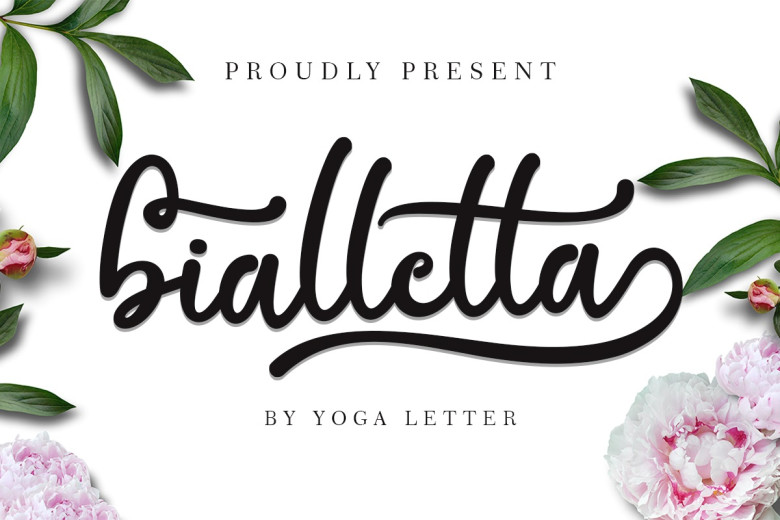
Bold Script Font Dafont. Vrindals script dafont font download free for desktop webfont 30 food fonts that are good enough to eat creative market blog. Guthenberg bold script is a bold calligraphy script with dramatic movement and strong style for your latest project that needs handlettering taste.
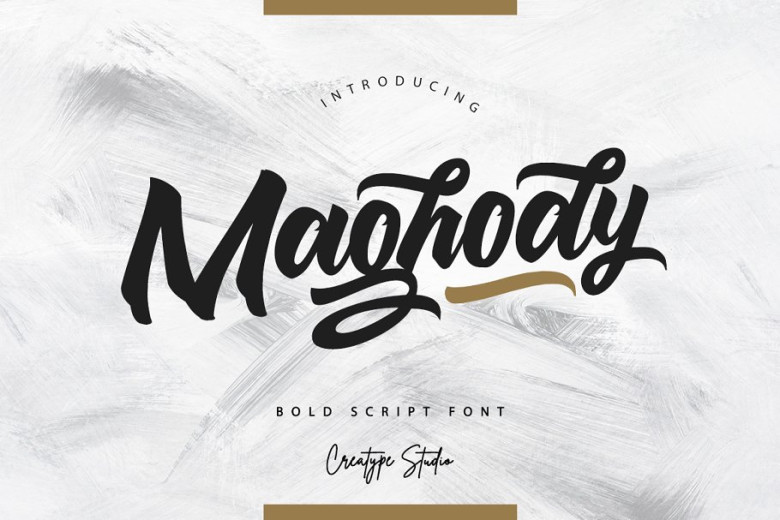
It includes all the upper and lowercase characters, alternates and ligatures, but doesn't include punctuation and other characters. It contains a full arrangement of lower and capitalized letters, enormous scope of accentuation, numerals, and multilingual help. Introducing stringlabs creative bold script font, stringlabs creative is a bold script with calligraphy style.
Today We Have Collected 20 Elegant Bold Script Fonts.
9,509,641 downloads (3,563 yesterday) 55 comments free for personal use. Amertha font is a bold logotype script font. Download sweet child an elegant script font with a contemporary atmosphere and impeccable form, inspired by a timeless classic calligraphy.
The Imbalanced Heights And Spacing Will Give Your Work A Natural And Handwritten Look.
That will fulfill your design needs dast lovely font january 23, 2022 Amertha bold signature script font. Adaline script font is a modern calligraphy and script typeface.
Script mt bold is a handwritten script typeface that was designed and developed by f.h.steltzer. About radiant bold script font. Recollet is a powerful retro script with a vintage feel.
The stringlabs creative is perfect for bold script font lovers, besides this font is also perfect if used for brands such as: Brightons bold script font feels equally charming and elegant. 20 free bold script fonts.
Distinct Design Taste, Combining Classic Retro Style From The 1980S With Fashionable, Vintage, And Sporty Elements.
On july 3, 2019, the font was made public. Looking for bold cursive script fonts? Guthenberg bold script is perfect for branding projects, logo, wing designs, social media posts,.